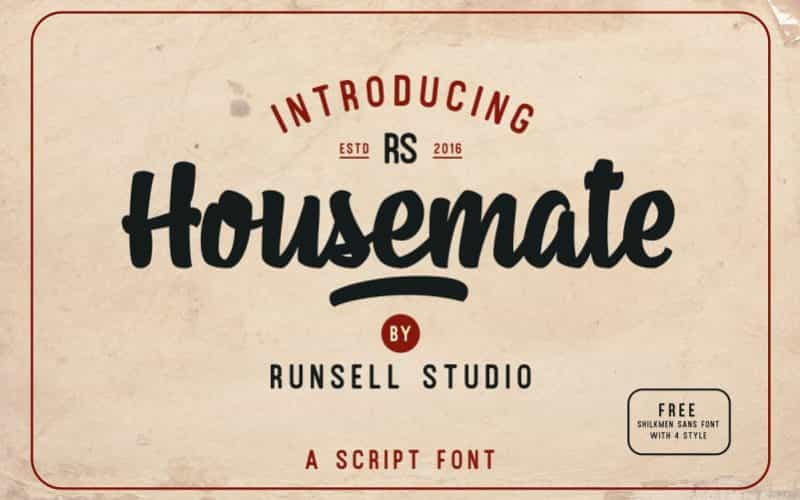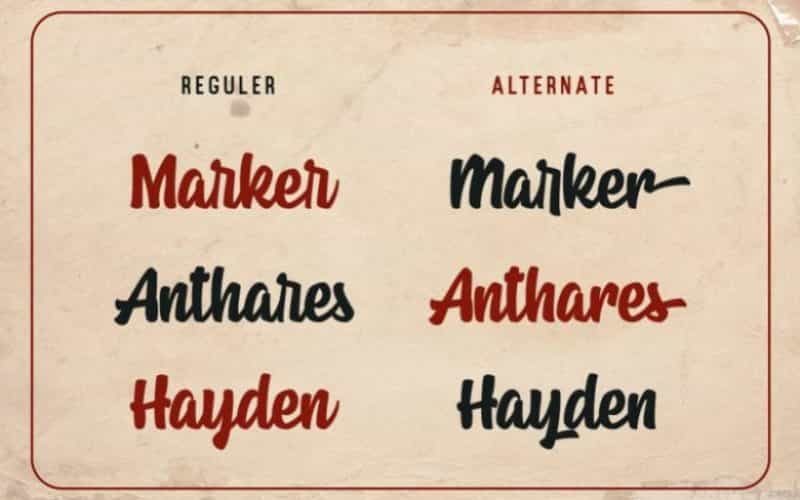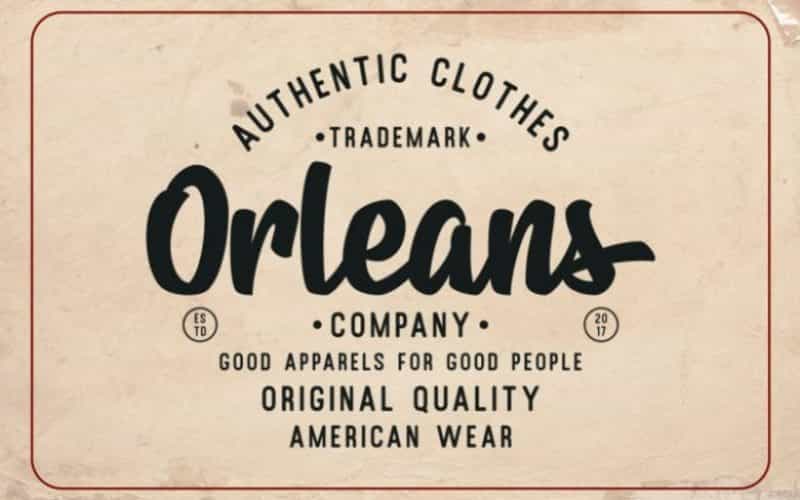
Housemate is a script font that dates back to the older versions and would suit, logotype, typography, poster, printed quotes, invitation cards, product packaging, header & letterhead, apparel design label and many more.